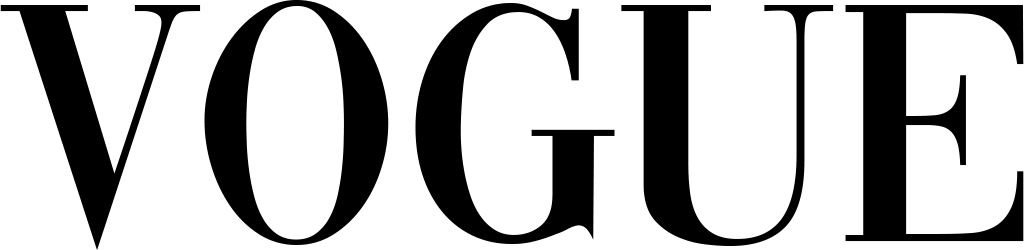
Vogue Font
Projects like printed texts, magazines, fashions, decorative headlines, and wedding cards contain contexts that require a formal and sophisticated font. For that, we can offer you Vogue which is a serif font that creates…
Projects like printed texts, magazines, fashions, decorative headlines, and wedding cards contain contexts that require a formal and sophisticated font. For that, we can offer you Vogue which is a serif font that creates that vibe with thin and thick lines for the letters. In this font, you only find the uppercase of the alphabet the numbers, and a few punctuation marks.